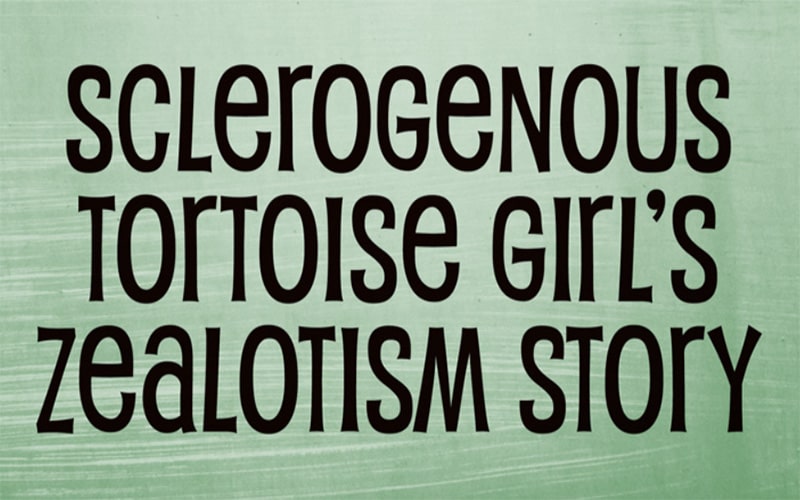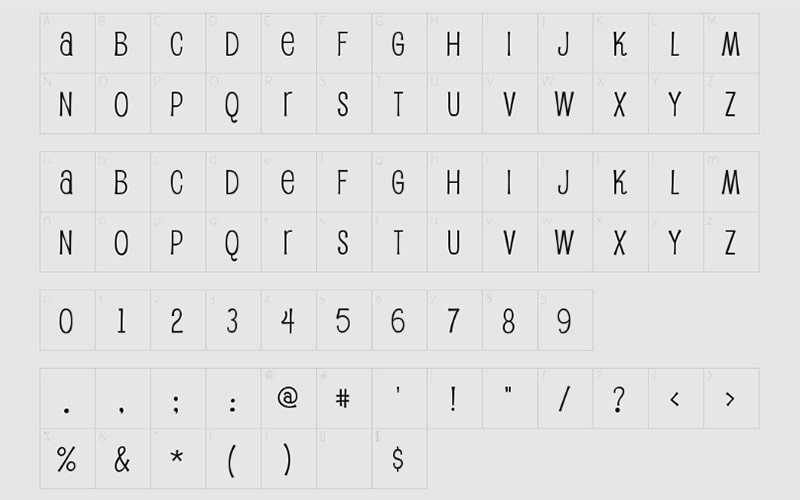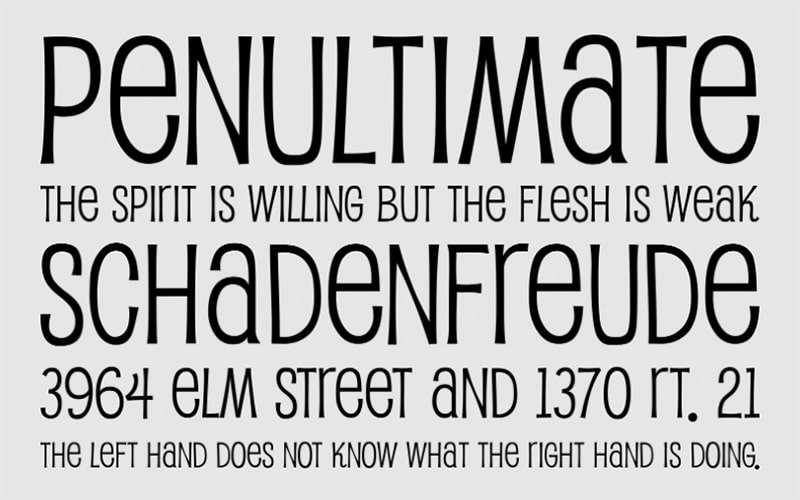
Pupcat Font is a Cartoon, Comic typeface. A famous font foundry named Typodermic Fonts is layered to give a stunning look to your projects.
For the very first time, Pupcat Font was designed by Raymond Larabie in Canada and updated on December 10, 2021. The font subfamily of this typeface is regular.
This font was inspired by posters from 1960s Hollywood comedies. A decorative outline font contains only 1 elegant style such as the “Pupcat regular” Font style.
Pupcat Font
| Font Name: | Pupcat Font |
| Style: | Cartoon, Comic, Typeface |
| Font Designer: | Typodermic Fonts |
This single regular weight typeface contains 282 defined characters and 237 glyphs counted in number with 1000 units per EM.
This font contains Unicode character ranges such as 93 Basic Latin, 78 Latin-1 supplements, 85 Latin Extended-A, 9 Spacing Modifier Letters, 13 General punctuation, and 1 currency symbol.
This free version font contains a robust character set including numbers, punctuations, uppercase, and lowercase letters. Let’s take a look at its beautiful texture.